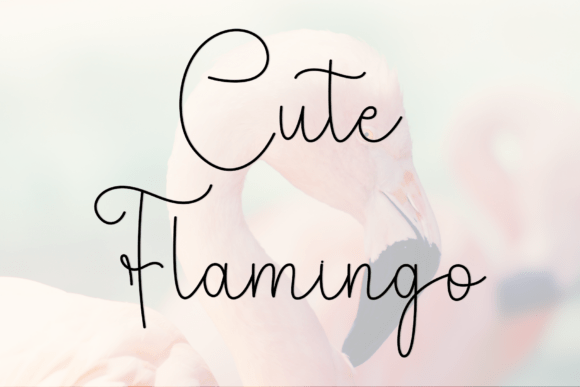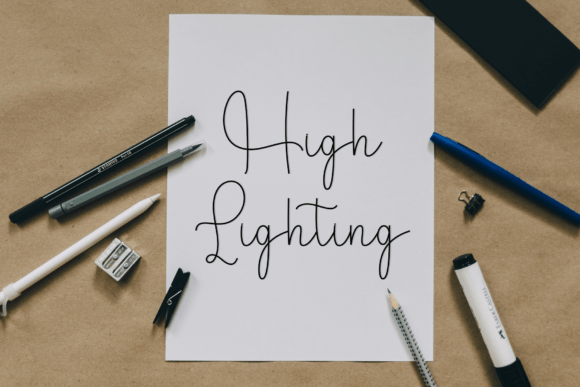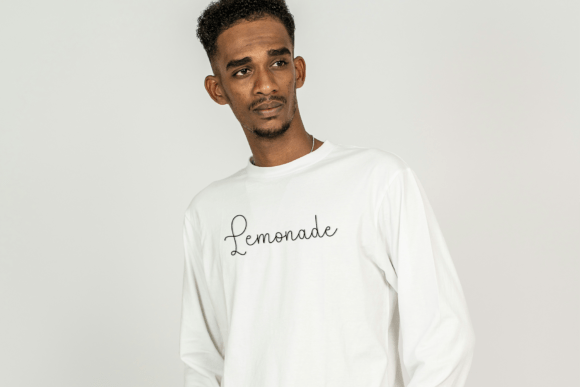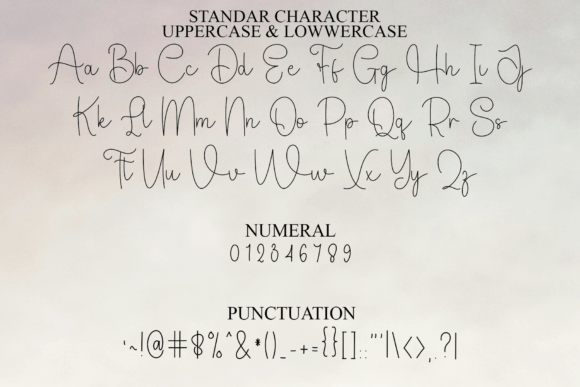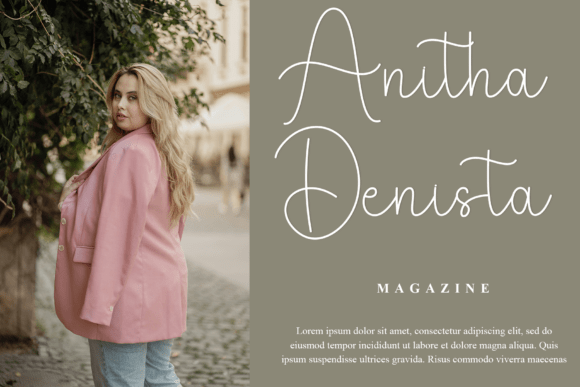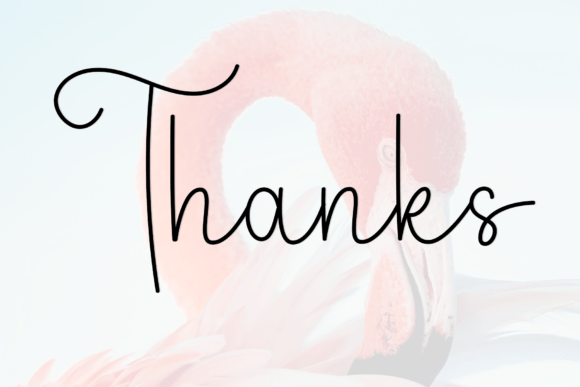
Introducing Beauty Flamingo Font: The Epitome of Elegant Script Typography
In the realm of typography, few fonts manage to capture the essence of hand-lettered charm as effortlessly as the Beauty Flamingo Font. This beautifully flowing script font is a masterpiece of design, boasting smooth curves and a natural rhythm that breathe life into any design project. Whether you’re a seasoned designer or a crafting enthusiast, Beauty Flamingo Font is an indispensable addition to your typographic arsenal.
Unleashing Versatility in Design
Beauty Flamingo Font is not just a pretty face; it’s a versatile tool that can elevate a wide range of design projects. Its stylish, casual elegance makes it an ideal choice for:
- Personal Stationery: Add a touch of sophistication to your greeting cards, invitations, and letters with this beautiful script font.
- Wedding Designs: Create stunning wedding stationery, from save-the-date cards to wedding invitations, that exude romance and elegance.
- Logos: Give your brand a unique identity with a custom logo that showcases the Beauty Flamingo Font’s distinctive charm.
- Quotes and Typography: Bring inspirational quotes and phrases to life with a font that flows as smoothly as it does elegantly.
The Characteristics of Beauty Flamingo Font
So, what sets Beauty Flamingo Font apart from other script fonts? Here are a few key characteristics that make it a standout:
- Smooth Curves: The font features beautifully smooth curves that give it a fluid, natural look.
- Natural Rhythm: The spacing and flow of the letters are carefully crafted to mimic the rhythm of handwriting, adding to the font’s charm.
- Stylish yet Casual: Beauty Flamingo Font strikes the perfect balance between elegance and playfulness, making it suitable for both formal and casual designs.
- High Versatility: Use it for a variety of projects, from digital designs to print materials, without compromising on style or legibility.
Why Designers and Crafters Love Beauty Flamingo Font
Designers and crafters around the world have fallen in love with Beauty Flamingo Font for several reasons:
- Unique Aesthetic: In a sea of generic fonts, Beauty Flamingo Font offers a unique aesthetic that can instantly elevate a design.
- Time-Saving: With its comprehensive set of characters and ligatures, designers can create beautiful text without spending hours on manual adjustments.
- Emotional Connection: The font’s hand-lettered feel creates an emotional connection with the reader, making designs more relatable and engaging.
Tips for Using Beauty Flamingo Font
To get the most out of Beauty Flamingo Font, consider the following tips:
- Pair it with Contrasting Fonts: Combine Beauty Flamingo Font with a simple sans-serif or serif font to create visual interest and hierarchy in your designs.
- Experiment with Colors: While the font itself is stunning, experimenting with different colors can further enhance its beauty and adapt it to your brand’s palette.
- Play with Ligatures: Take advantage of the font’s ligatures to add a touch of uniqueness to your text and make it stand out.
Beauty Flamingo Font is more than just a script font; it’s a design solution that brings a touch of elegance and charm to any project. Its versatility, combined with its unique aesthetic, makes it an invaluable resource for designers and crafters looking to create stunning, memorable designs. Whether you’re working on a wedding invitation, a brand logo, or a personal craft project, Beauty Flamingo Font is sure to inspire and elevate your work.